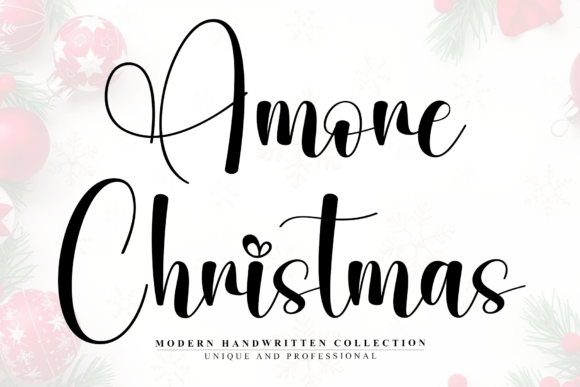
The Magic of Amore Christmas Font: Elevate Your Designs with Luxurious Elegance
I’ll never forget the time I was working on a high-end wedding invitation project, and my client asked for a font that exuded luxury and sophistication. I scoured the internet, tried countless fonts, but nothing seemed to fit the bill. That was until I stumbled upon Amore Christmas Font. ✨ It was love at first sight! The elegant, flowing script with its exquisite loops and swashes instantly captured the essence of what I was looking for.
- 💯 Exquisite, elongated loops and flowing swashes that add a touch of drama and elegance
- ✅ High-contrast strokes that give it a classic, formal look
- 🎉 Perfect for high-end designs, such as wedding invitations, formal event branding, and luxury product packaging
- 🔥 Allows for highly customized, stunning typographic layouts
- ⚠️ Some users may find the font a bit challenging to work with, especially those new to script fonts
- ⚠️ Limited availability of certain characters and swashes in non-PUA-encoded software
The Story Behind Amore Christmas Font
Amore Christmas Font was designed with the intention of capturing the essence of luxury and sophistication. The designer’s goal was to create a font that would evoke the feeling of high-end elegance, perfect for special occasions and formal events. With its exquisite loops and swashes, Amore Christmas Font is sure to make a statement in any design.
| What is Amore Christmas Font best suited for? | Amore Christmas Font is perfect for high-end designs, such as wedding invitations, formal event branding, luxury product packaging, and any design where a touch of vintage glamour and refined beauty is paramount. |
| Is Amore Christmas Font easy to use? | While Amore Christmas Font is a powerful tool, some users may find it a bit challenging to work with, especially those new to script fonts. However, with practice and patience, you’ll be able to unlock its full potential. |
| Does Amore Christmas Font support OpenType features? | Yes, Amore Christmas Font is PUA-encoded, allowing effortless access to all glyphs, swashes, and alternate characters. |